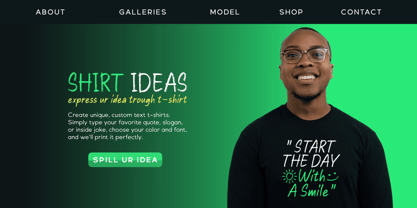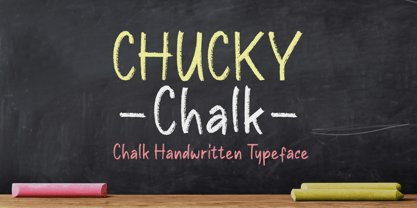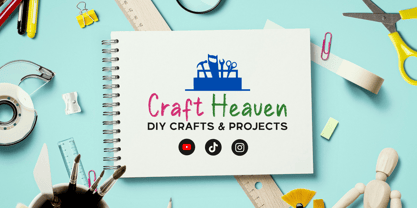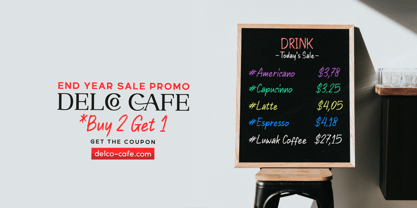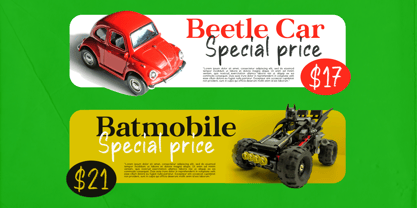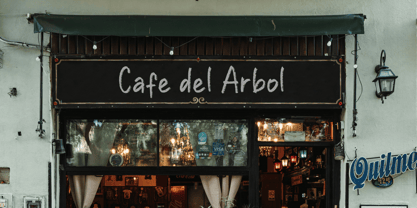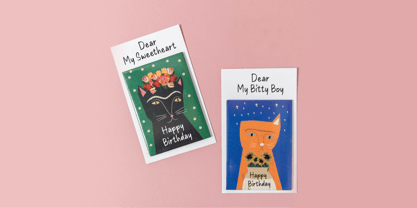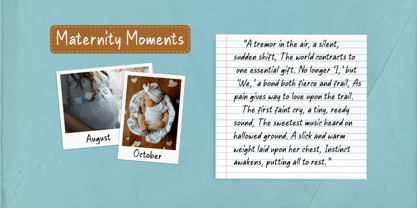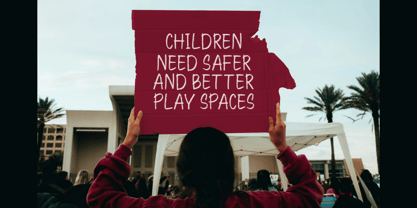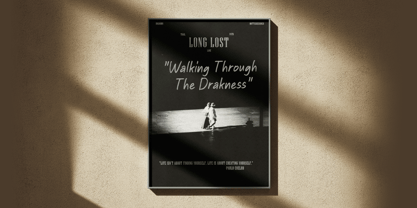
Chucky Chalk
The Chucky Chalk Font Family was designed by Java Pep and published by Java Pep. Chucky Chalk contains 2 styles and family package options.
Introducing, fresh from the oven, a handwritten typeface called the Chucky Chalk font. This font is inspired by handwriting on a blackboard, so every glyph is crafted with a rough chalk-stroke effect. Chucky Chalk font is a playful typeface, but still elegant. This font is perfect for branding, logotype, poster, banner, advertising, short quotes, headlines, title, invitation, etc. Chucky Chalk font supports more than 25 languages and full standard characters, uppercase, lowercase, numerals, and punctuation
Chucky Chalk